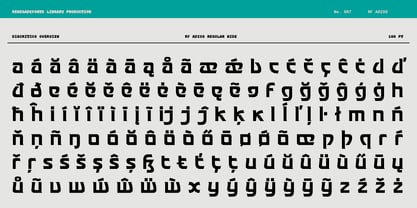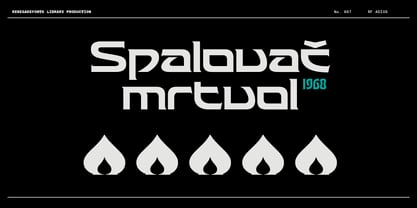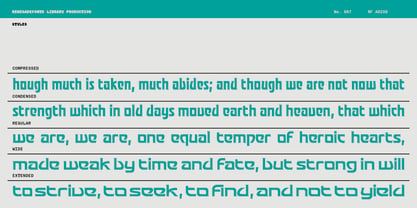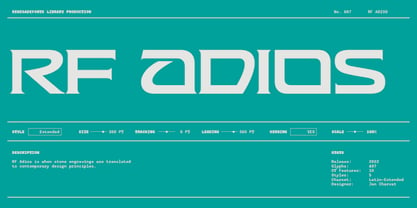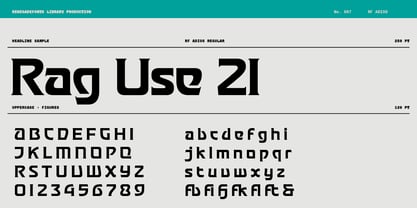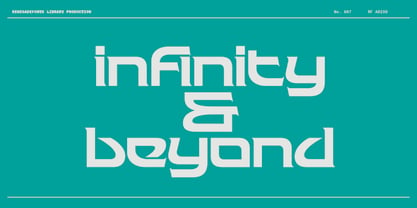
RF Adios
by Renegade Fonts
The RF Adios Font Family was designed by Jan Charvát and published by Renegade Fonts. RF Adios contains 5 styles and family package options. More about this family
RF Adios is when stone engravings are translated to contemporary design principles. The idea is coming from lowercase letter a found on Sudeten graveyard in Czech Republic. It seems very elegant, yet reminds retro sci-fi aesthetic. It could be used on a clubhouse night aswell as on a haunted house entrance. 5 width styles give you the right amount to choose from and if there is a still tiny detail to touch you can take the variable font.
Designers: Jan Charvát
Foundry: Renegade Fonts